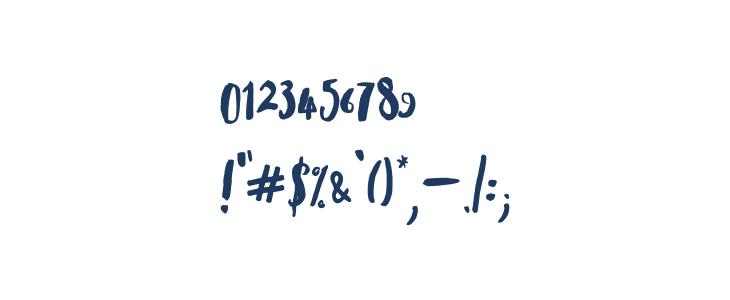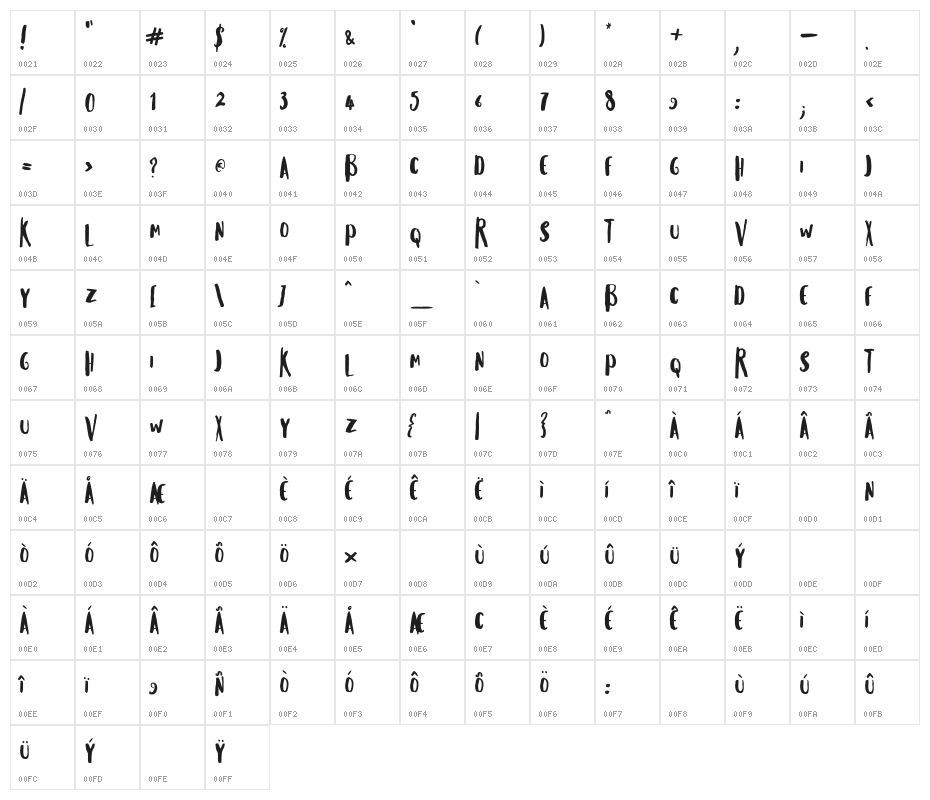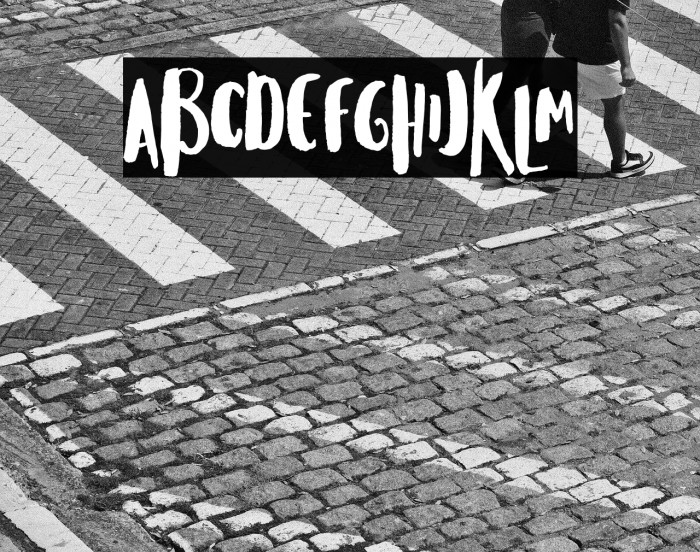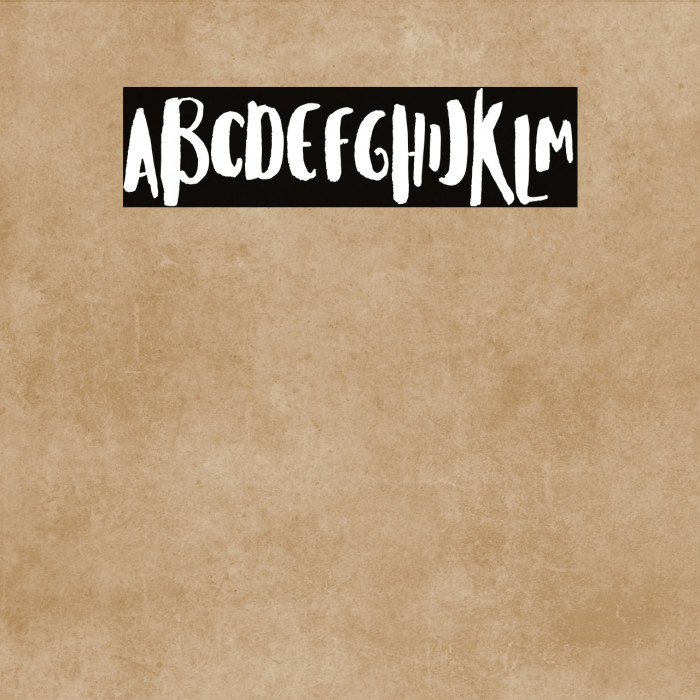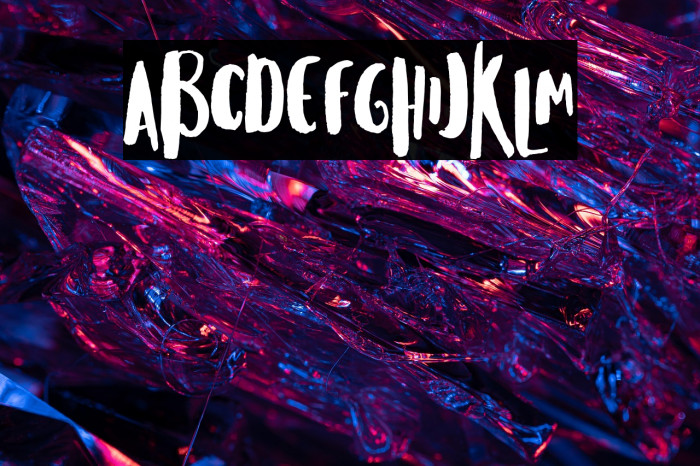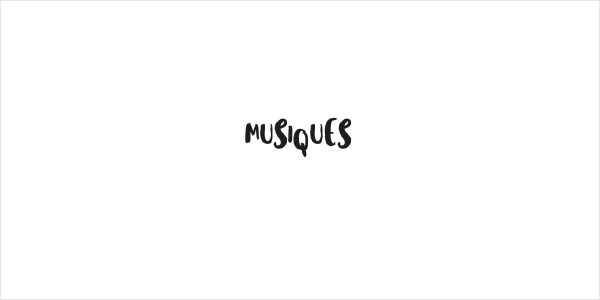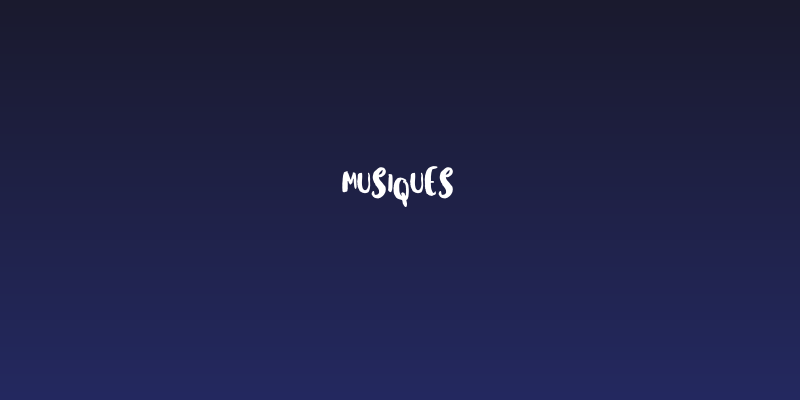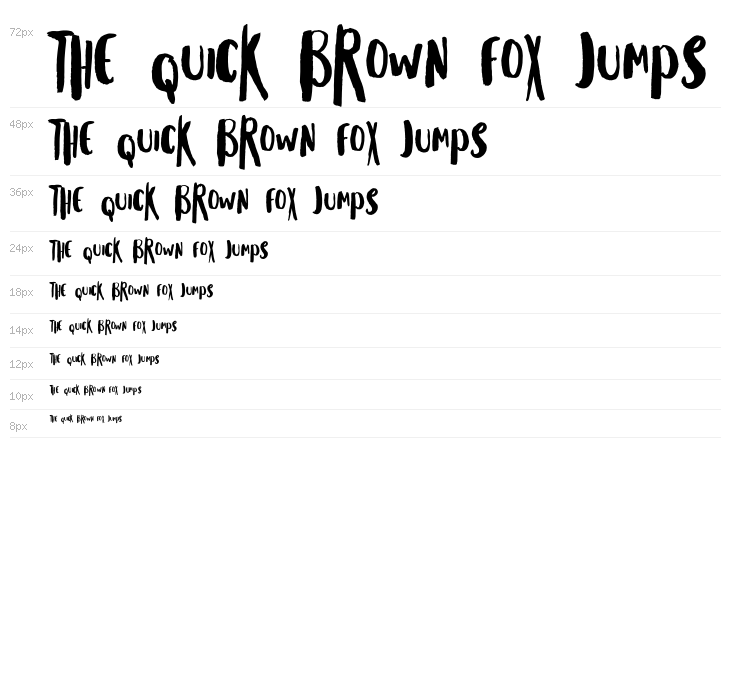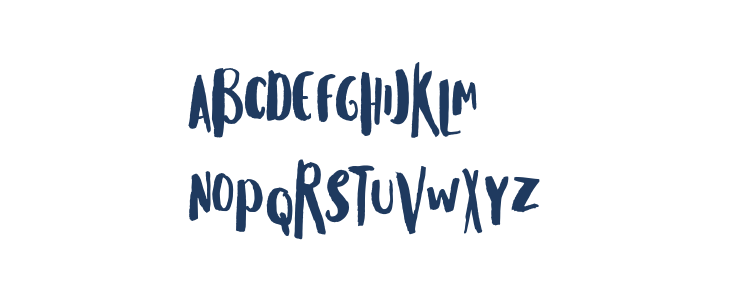
Musiques Font
Musiques Description
This font features a bold and expressive handwritten style, characterized by its irregular and playful letterforms. The strokes are thick and dynamic, giving it a lively and energetic appearance. The uppercase and lowercase letters maintain a consistent style, with a slightly rough texture that adds to its handcrafted feel. The numbers and special characters are equally bold, maintaining the same artistic flair. This font is ideal for projects that require a personal touch or a creative, informal vibe.
| Proposed Projects | Great for posters, invitations, branding projects, and any design needing a personal, artistic touch. |